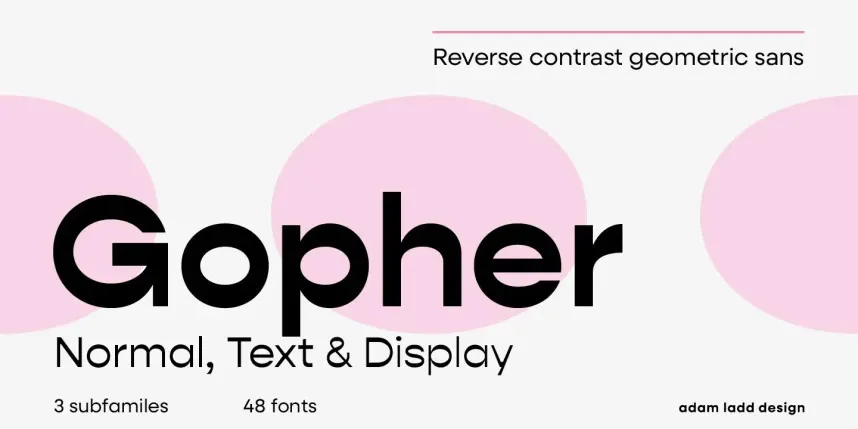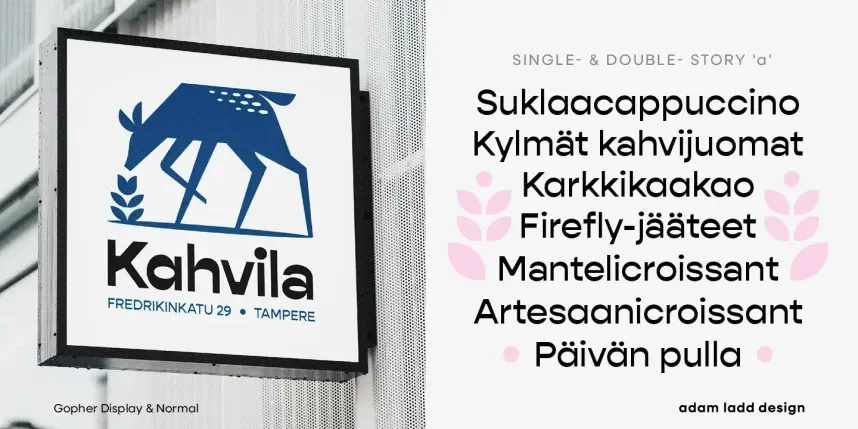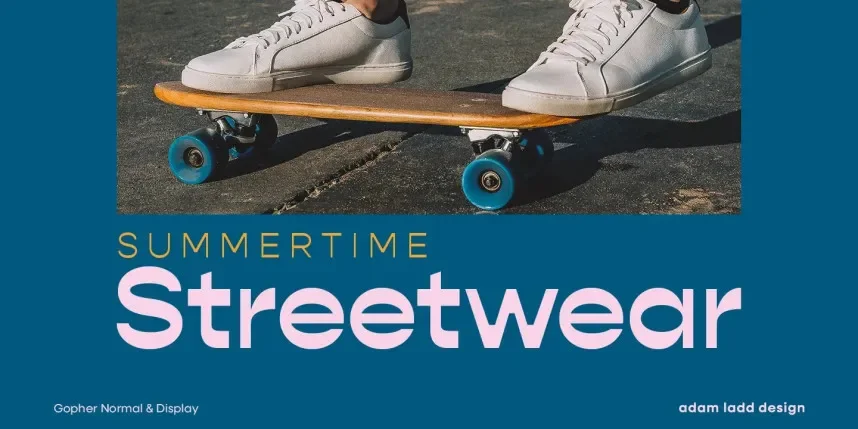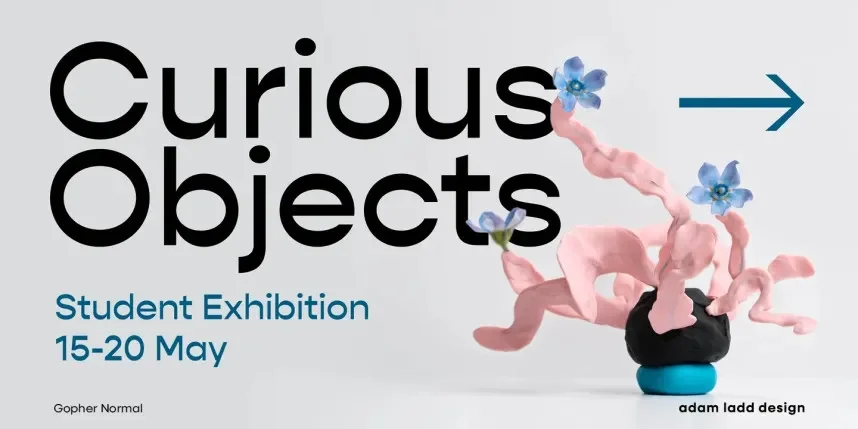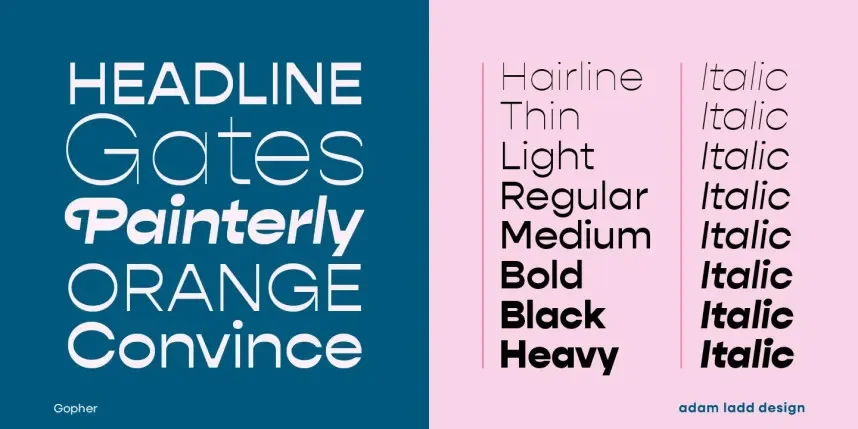
Gopher Font Family addresses readability issues common in slab serif designs. Many slab fonts appear too heavy or cramped in long-form text.
Gopher is a slab serif font family with open counters, moderate contrast, and sturdy serifs. Designed for both print and digital use, it maintains clarity across sizes and weights.